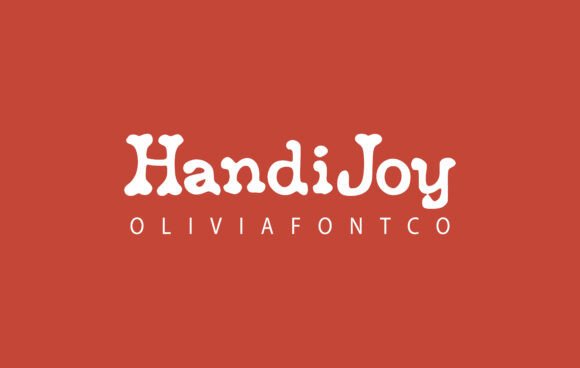
Handijoy Font: Authentic Handwritten Style for Branding
Testing Handijoy Font for Artisan Skincare Packaging Design
When I first loaded Handijoy into my font manager for a new artisan skincare branding project, I was immediately struck by how this specific typeface bridges the gap between personal warmth and professional polish. As a graphic designer, I often search through hundreds of Fonts looking for that elusive balance where authenticity meets legibility, and HandiJoy font is an authentic handwritten font with a romantic touch that perfectly suited the organic, small-batch nature of the client’s product line. Although categorized technically under Slab Serif in some databases due to its structural weight, in practice, it functions as a premium display typeface that brings a tactile, human element to digital mockups and printed labels alike. My initial test involved placing the font on a matte amber glass bottle mockup, and the result was instant visual harmony; the letterforms felt like they had been hand-lettered directly onto the packaging rather than digitally applied, which is exactly the high-end bespoke aesthetic modern consumers crave in luxury self-care products.
Handijoy in Logo Design and Visual Identity Systems
Integrating Handijoy into the primary logo mark required careful consideration of spacing and hierarchy to ensure the brand remained recognizable across various touchpoints. Because HandiJoy font is an authentic handwritten font with a romantic touch, it naturally carries a sense of intimacy that works exceptionally well for boutique businesses, but as a designer, I had to verify that this personality didn't compromise scalability on smaller assets like social media avatars or favicon sizes. In my experience testing this typeface against other popular Fonts in the creative market, Handijoy distinguishes itself through consistent stroke width and balanced x-heights, which prevents the "messy" look that plagues lesser handwritten styles when scaled down. While the category listing mentions Slab Serif, the actual application here leaned heavily into its fluid connectivity, allowing me to create a wordmark that felt established and trustworthy without appearing stiff or corporate. For this specific identity system, I used the font exclusively for the brand name and tagline, reserving cleaner sans serifs for regulatory text to maintain compliance and readability while letting Handijoy serve as the emotional anchor of the visual identity.
Elevating Social Media Graphics with Handijoy Typography
Creating Instagram templates and Pinterest pins became significantly more efficient once I established Handijoy as the primary headline font for the client’s digital content strategy. Since HandiJoy font is an authentic handwritten font with a romantic touch, it pairs effortlessly with soft photography and pastel color palettes, reducing the need for excessive decorative elements that can clutter mobile screens. When designing carousel posts, I found that Handijoy maintained excellent legibility even at smaller point sizes, provided there was sufficient contrast against the background—a crucial factor when selecting Fonts for accessibility-conscious brands. The romantic quality of the typeface added a layer of storytelling to product launches, making promotional graphics feel more like personal recommendations from a friend rather than aggressive advertising. Although some might associate this style strictly with print, my testing confirmed that Handijoy renders beautifully on web platforms, retaining its nuanced curves and authentic texture without pixelation, which is essential for maintaining brand consistency across digital and physical channels.
Pairing Handijoy with Supporting Fonts for Editorial Layouts
One of the most critical phases of the branding process was determining how Handijoy would interact with body copy in brochures, website about pages, and product insert cards. Because HandiJoy font is an authentic handwritten font with a romantic touch, it demands a supporting typeface that provides stability and neutrality to prevent the overall design from becoming visually exhausting. I successfully paired Handijoy with a geometric sans serif for body text, creating a dynamic tension where the warmth of the display font was grounded by the modern clarity of the secondary typeface. While exploring Fonts for this pairing, I avoided other script or highly stylized serif options, as competing personalities often dilute the impact of such a distinctive header font. Interestingly, despite the Slab Serif classification tag sometimes associated with this family, treating Handijoy purely as an expressive accent font yielded the best results in editorial layouts, guiding the reader’s eye through the content while reinforcing the brand’s artisanal narrative without sacrificing information density or user experience.
Why Handijoy Works for Boutique and Creative Branding
Reflecting on the completed project, it is clear that Handijoy succeeded because it solved a specific communication problem: conveying genuine human connection through typography. HandiJoy font is an authentic handwritten font with a romantic touch that transcends mere decoration, functioning instead as a strategic tool for differentiation in crowded retail environments. Unlike many novelty Fonts that lose their appeal after initial use, Handijoy offered enough versatility to carry the brand across seasons and product expansions without feeling repetitive or dated. Even though metadata might reference Slab Serif characteristics, the true strength lies in its ability to evoke emotion while maintaining professional standards of typographic craft. For designers working on weddings, cafes, handmade shops, or lifestyle brands, this typeface offers a shortcut to sophistication, providing that expertly designed favorite status mentioned in its description. Ultimately, using Handijoy transformed a standard rebrand into a memorable sensory experience, proving that the right font choice is not just about aesthetics, but about building lasting trust and recognition with customers who value craftsmanship and heart.